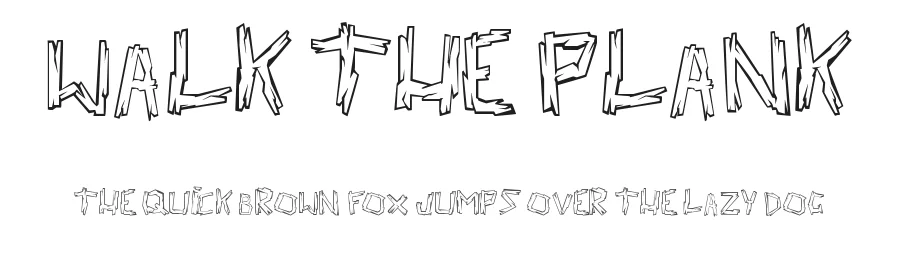
About Xerker FW Font
Xerker FW is a decorative font designed by Brain Eaters Font Co.. It includes 224 glyphs, a regular weight, TTF (TrueType) format, and 210 languages. Xerker FW is free to download; check the license details on this page before commercial use. Decorative fonts like Xerker FW work best for logos, posters, packaging, and standout headlines.
Xerker FW Font is a decorative font that shines as a display or heading face. Pair it with a clean sans-serif or serif font for body text β the contrast creates a clear hierarchy while the two styles stay balanced and easy to read.
Xerker FW Font
Xerker FW Font is a decorative typeface by Brain Eaters Font Co., ideal for logos, invitations, branding, and creative projects.